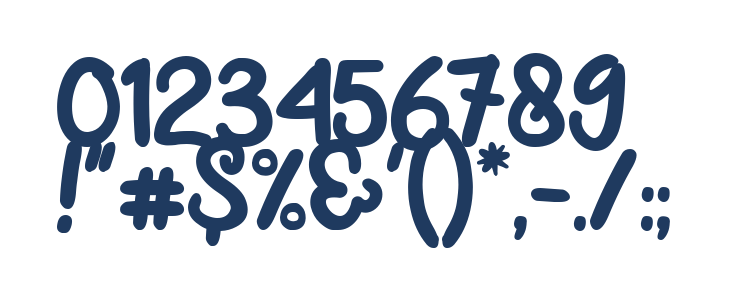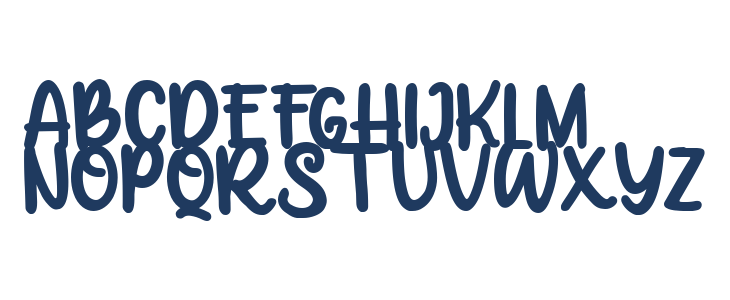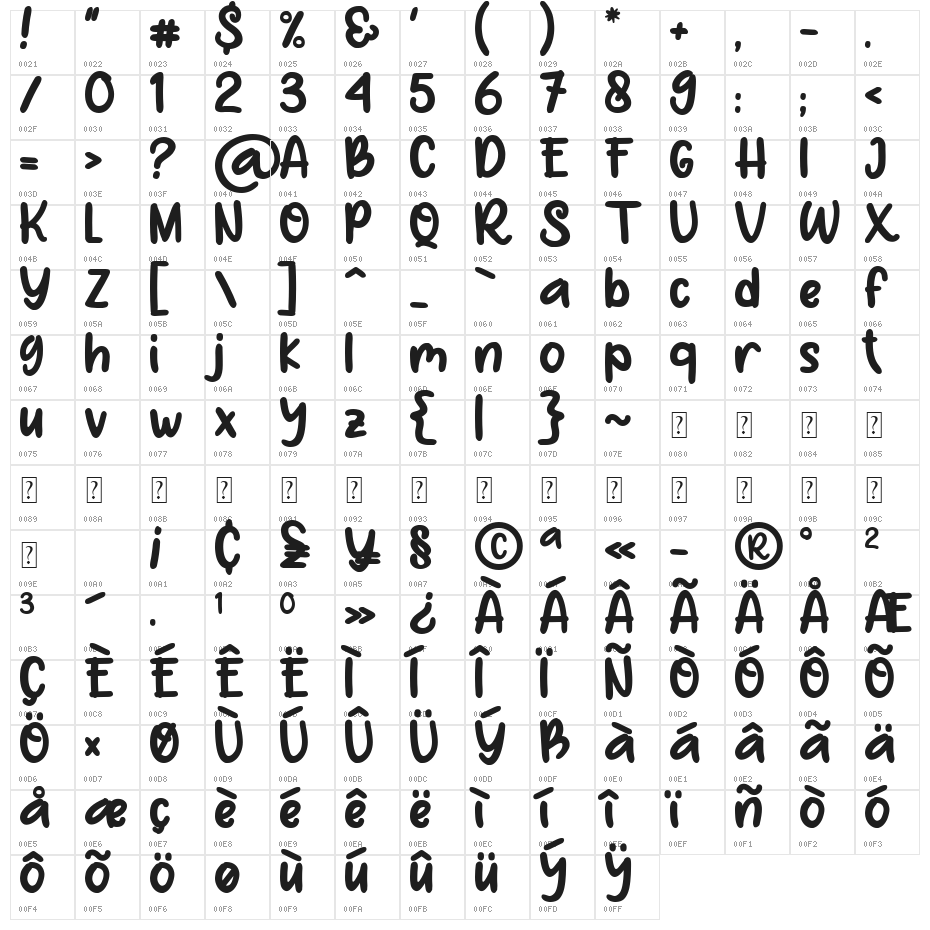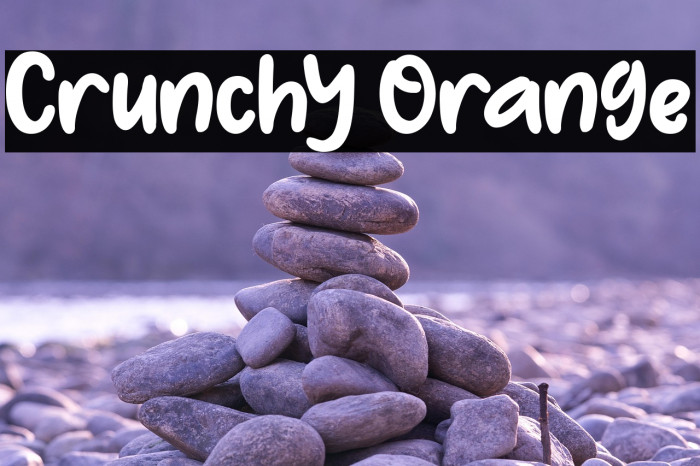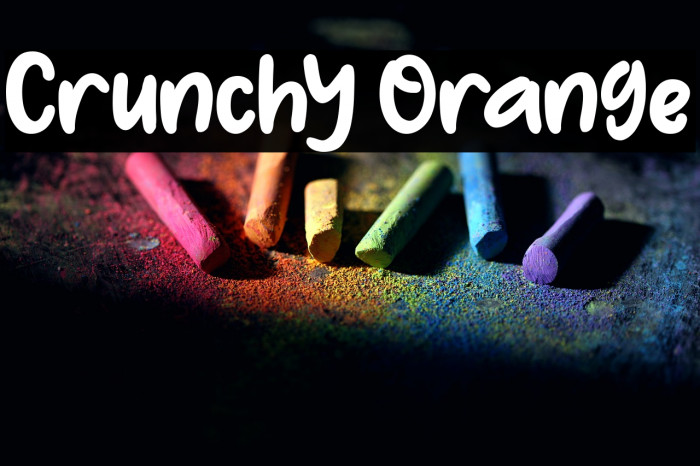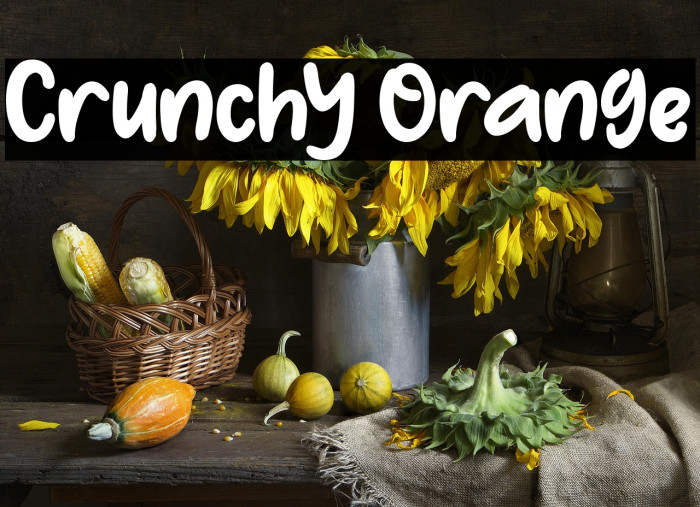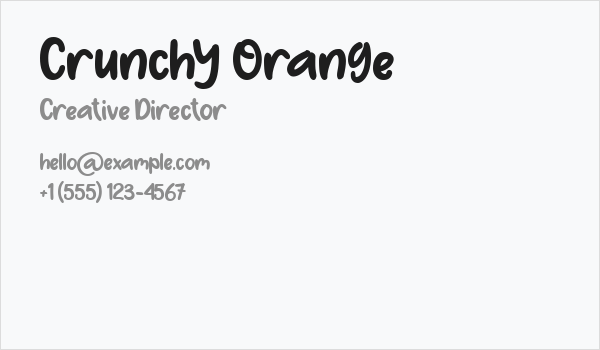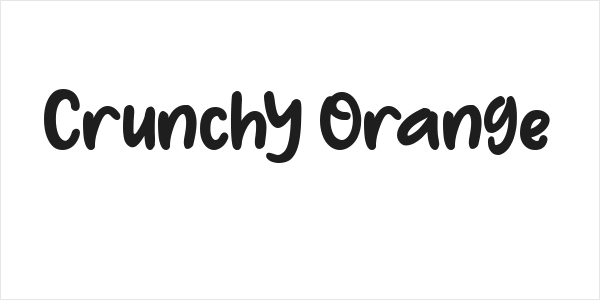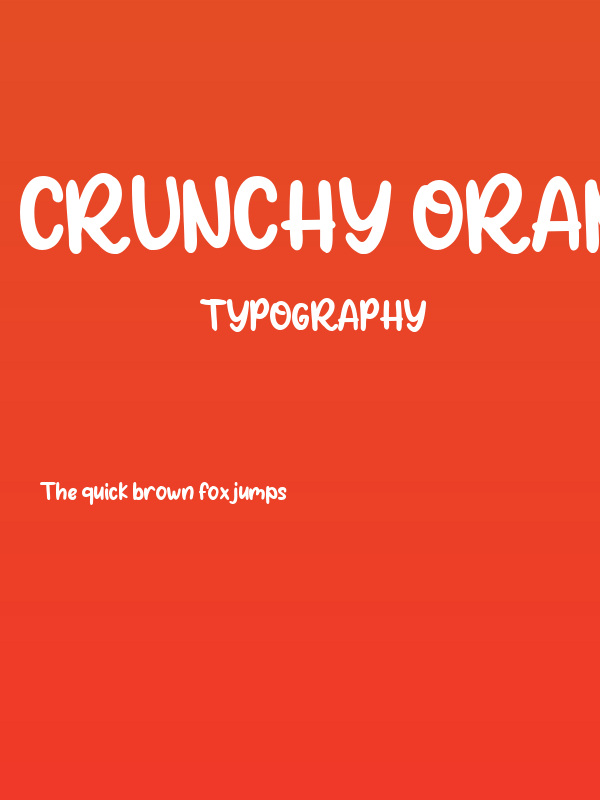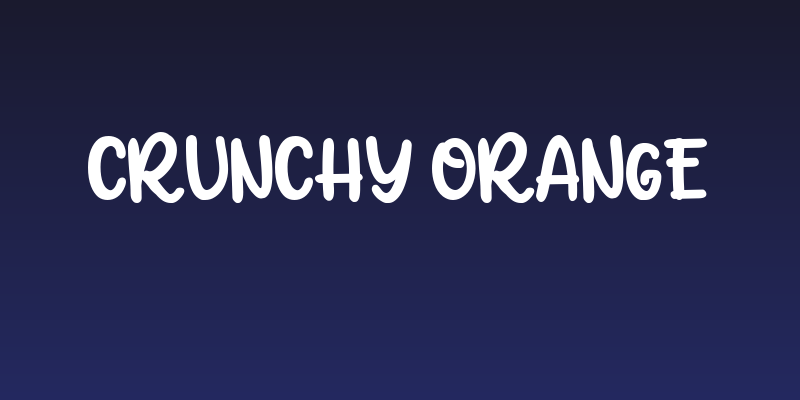
Crunchy Orange Font
Crunchy Orange Description
A playful, rounded handwritten font with bold strokes and a casual, energetic appearance. The characters are slightly irregular, giving a friendly and approachable feel, with consistent stroke thickness and generous spacing.
| Overall Style | Playful, Casual, Decorative |
| Use Case | Headlines, Posters, Logos, Informal Invitations |
| Proposed Projects | Children's books, posters, greeting cards, playful branding, social media graphics. |